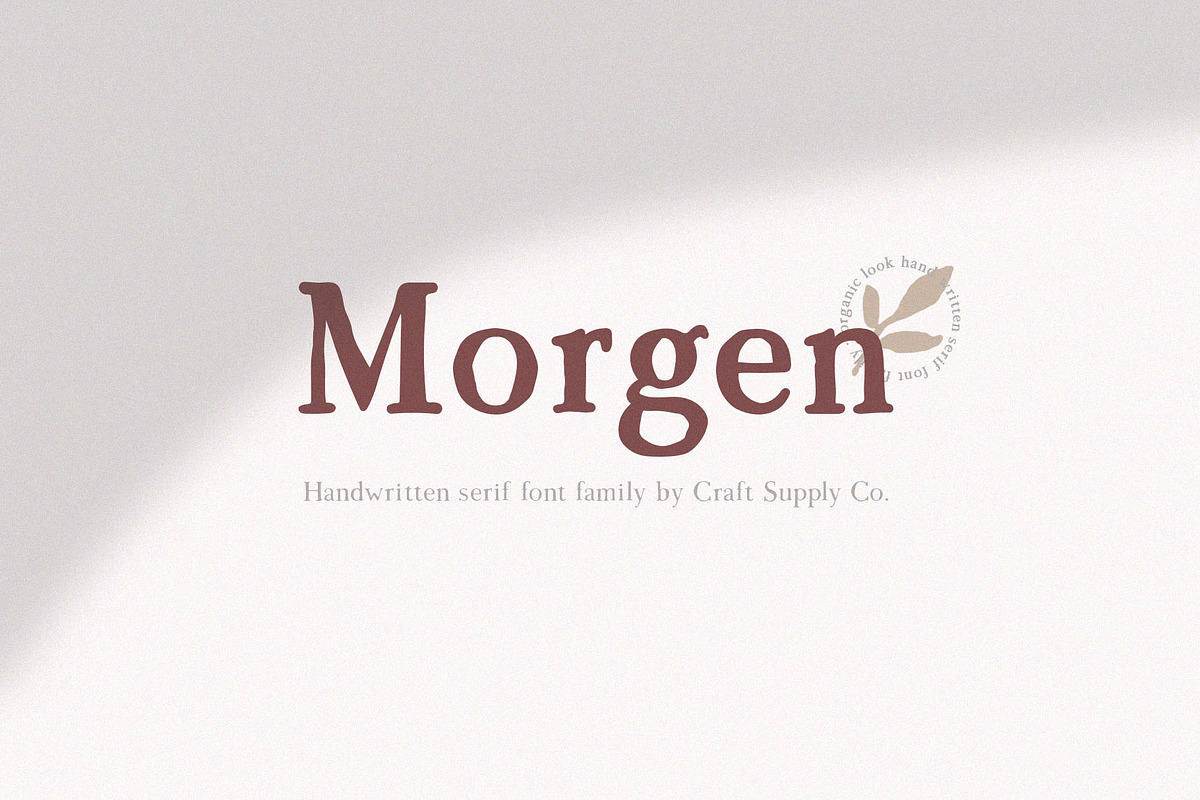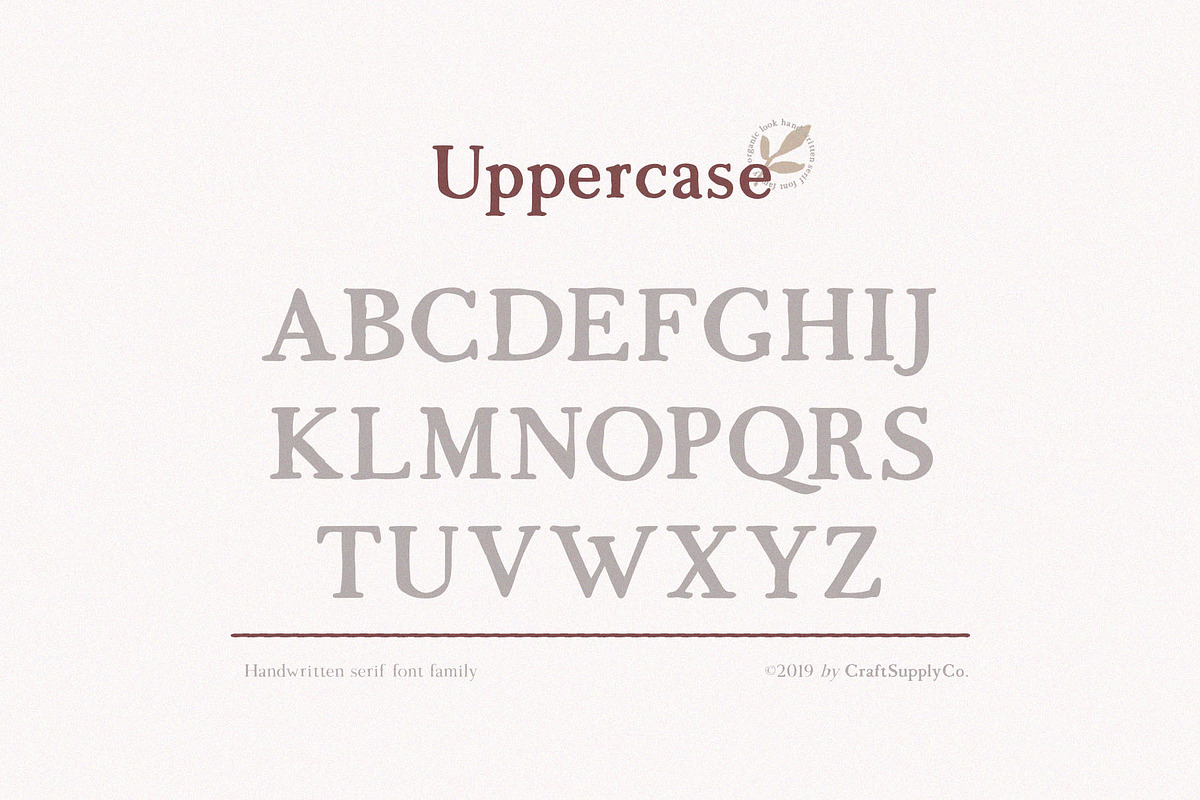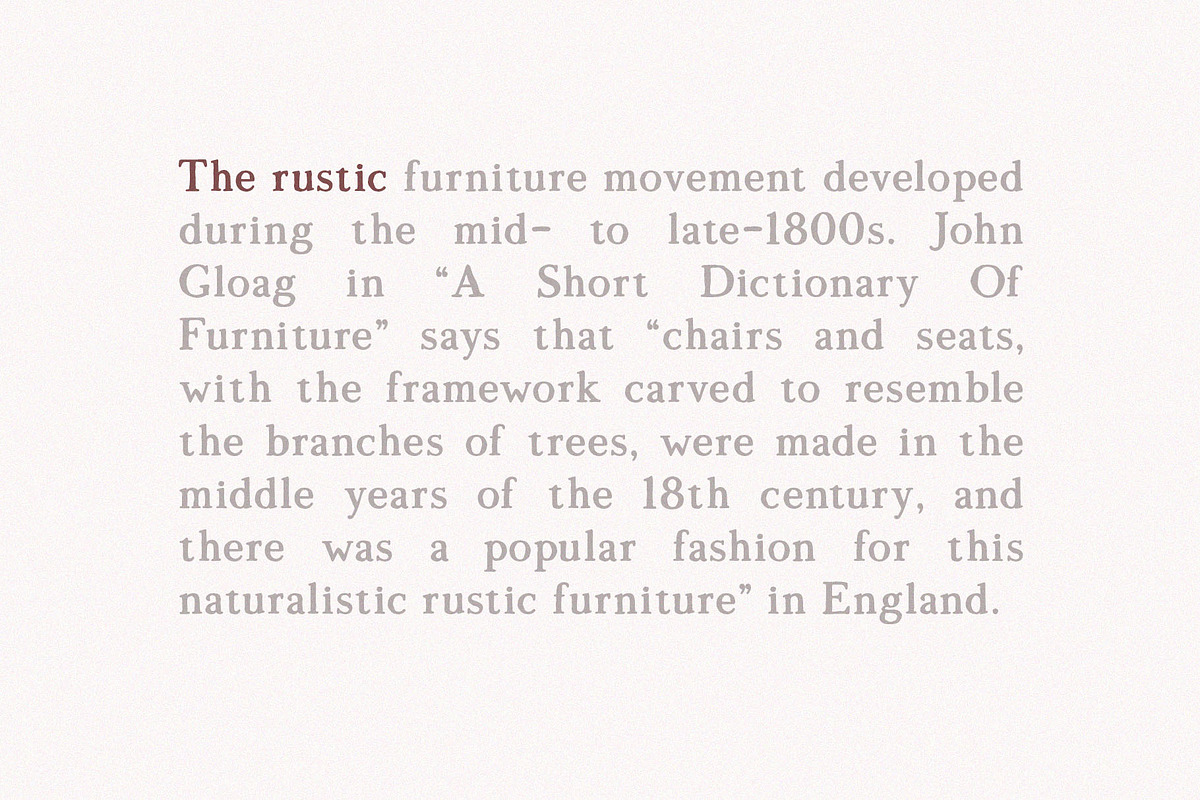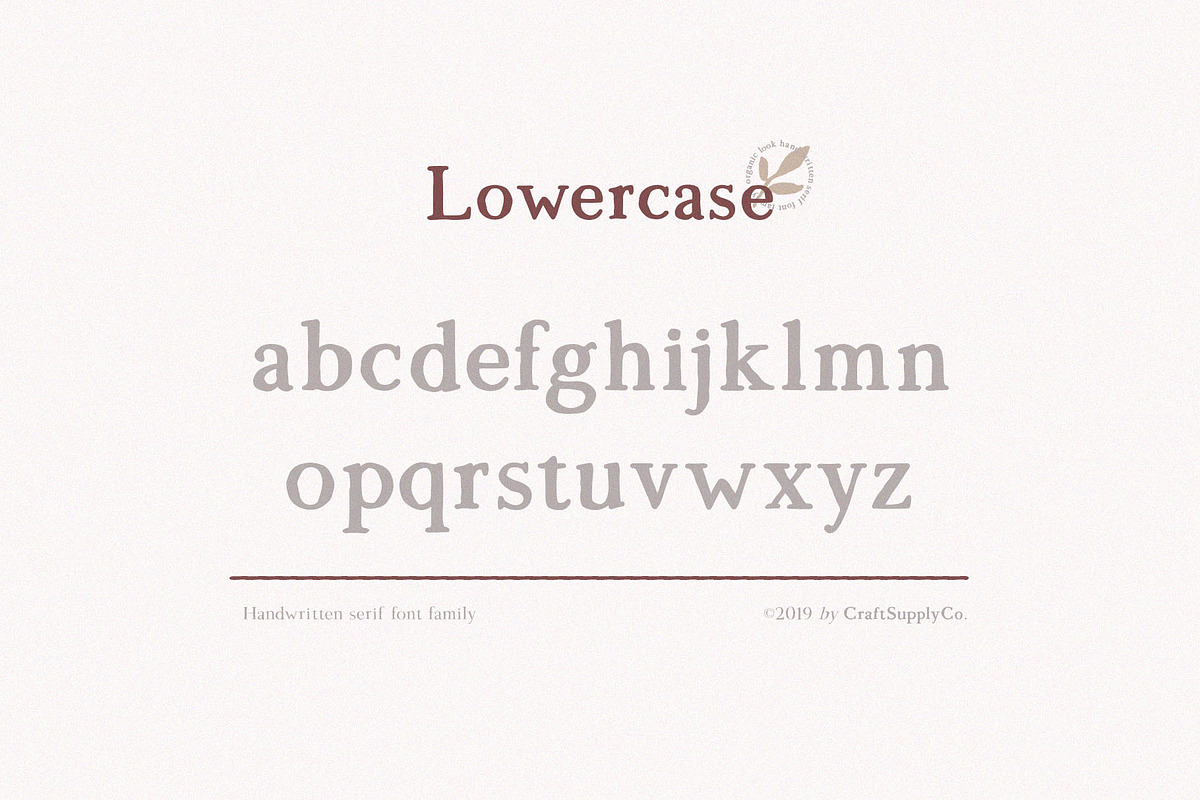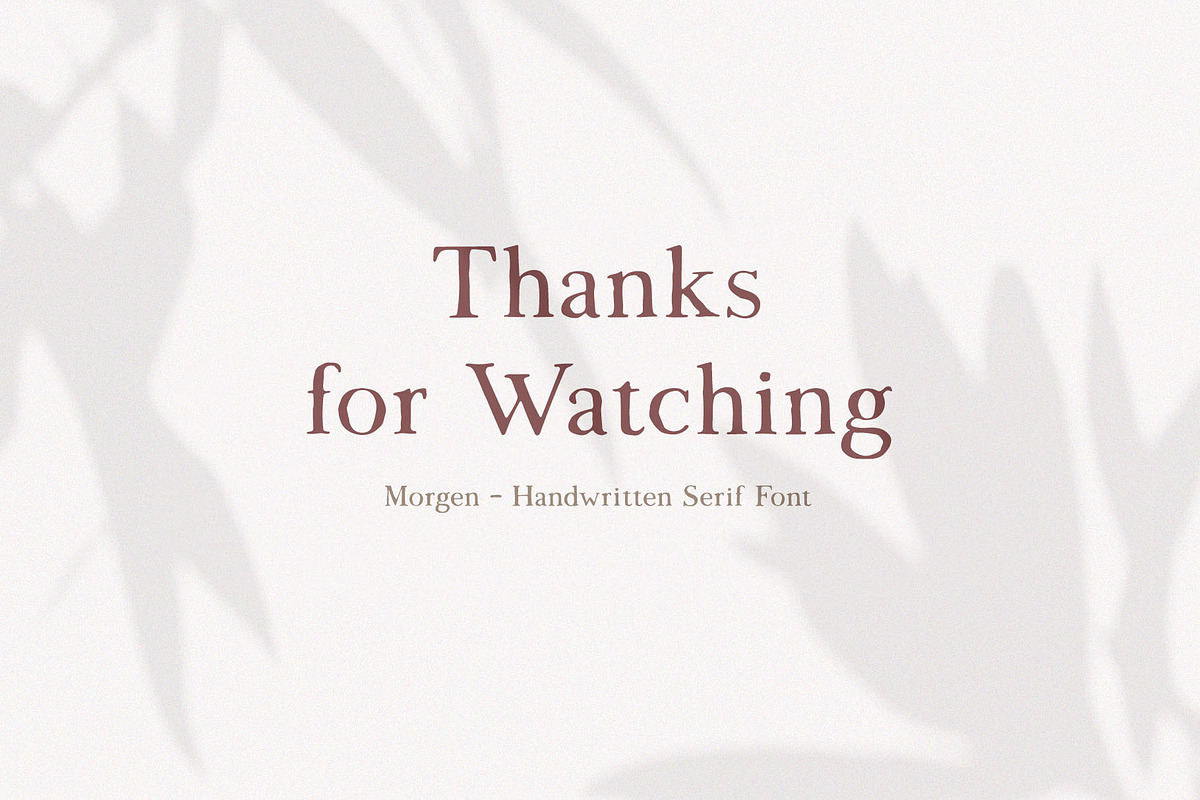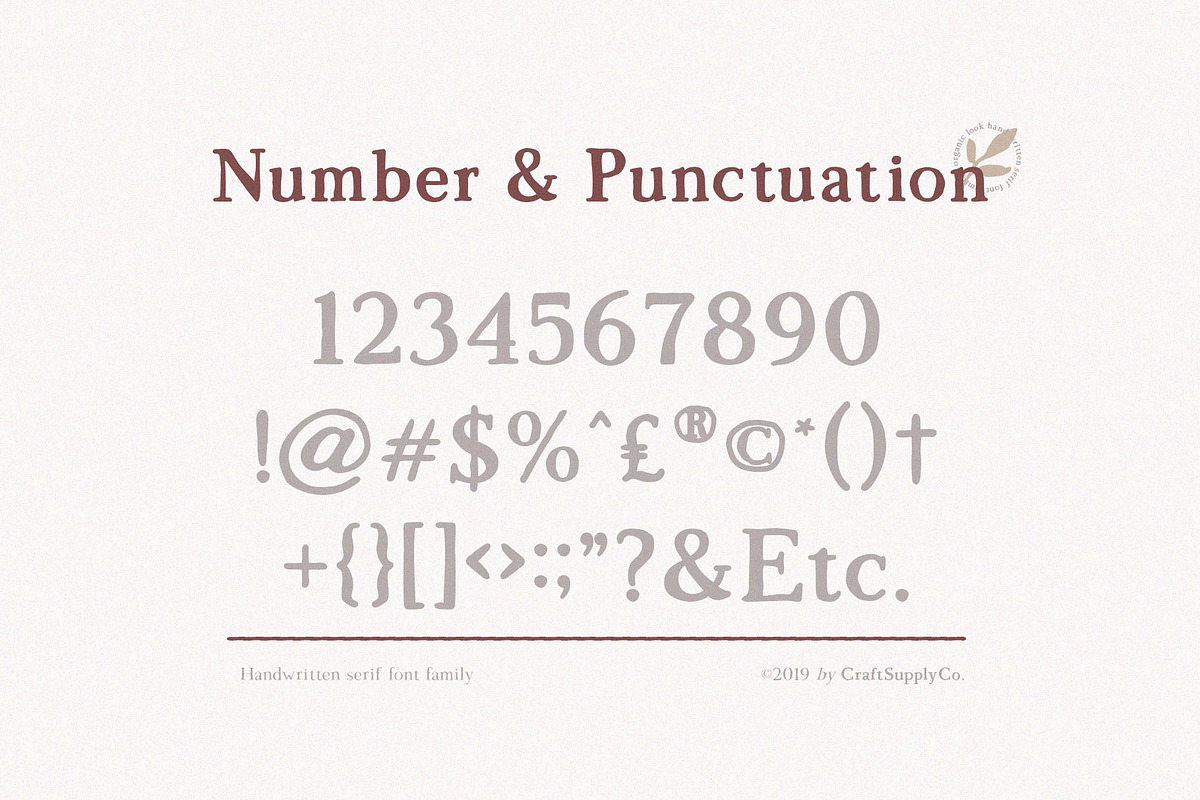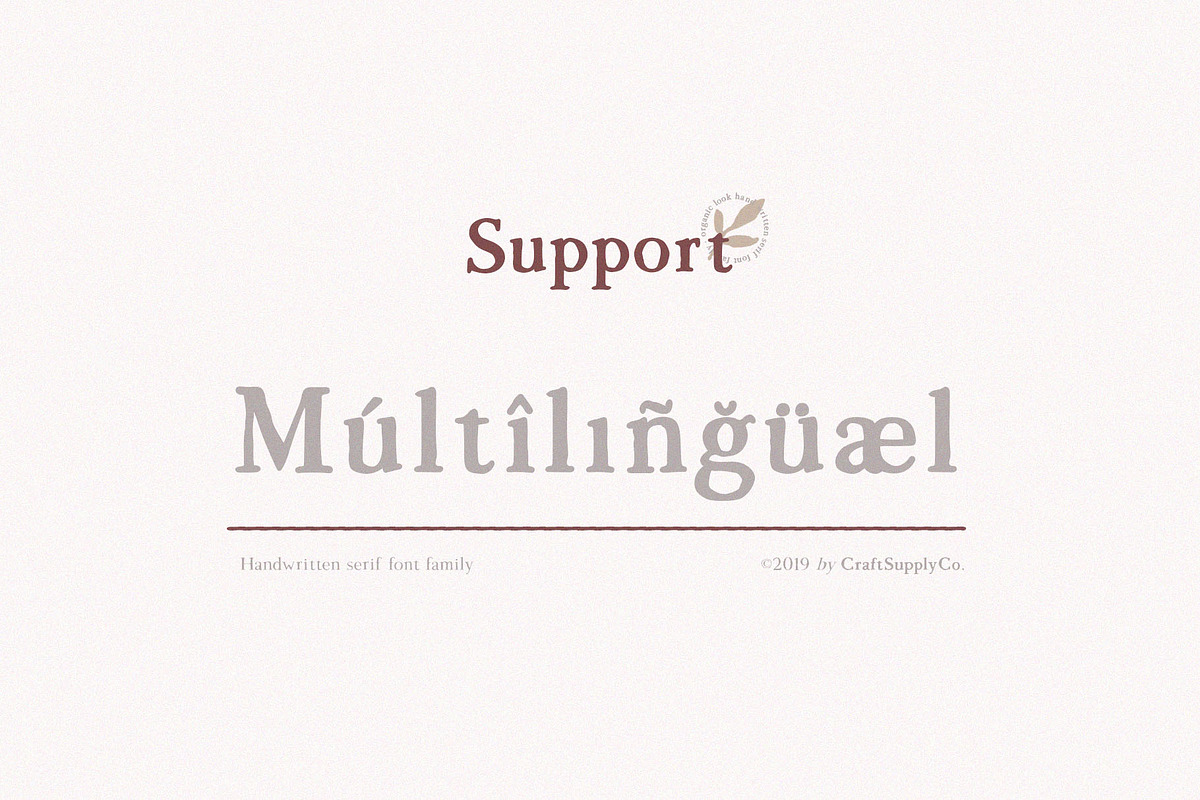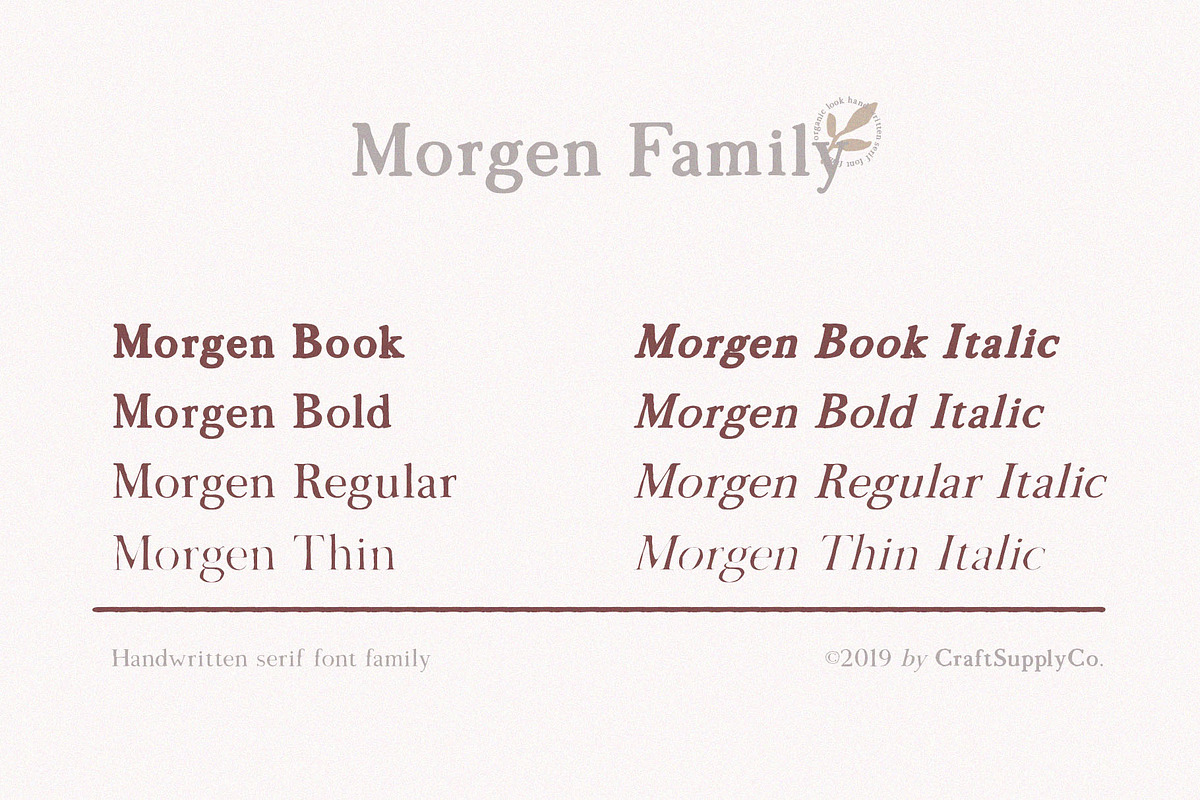
Morgen - Handwritten Serif Font
Introducing Morgen - Handwritten Serif Font Family.
Introducing Morgen - Handwritten Serif Font Family. It can be used to create almost all types of design projects like print materials. Just use your imagination and your project will become more alive and look great than ever with Morgen - Handwritten Serif Font Family.
You want to make a greeting card or a package design, or even a brand identity, craft design, any DIY project, book title, wedding font, pop vintage design, retro design or any purpose to make your art / design project look pretty and trendy? Feel free to play with this fonts!
Morgen - Handwritten Serif Font by Craft Supply Co. fits naturally into Branding, posters, packaging, typography.